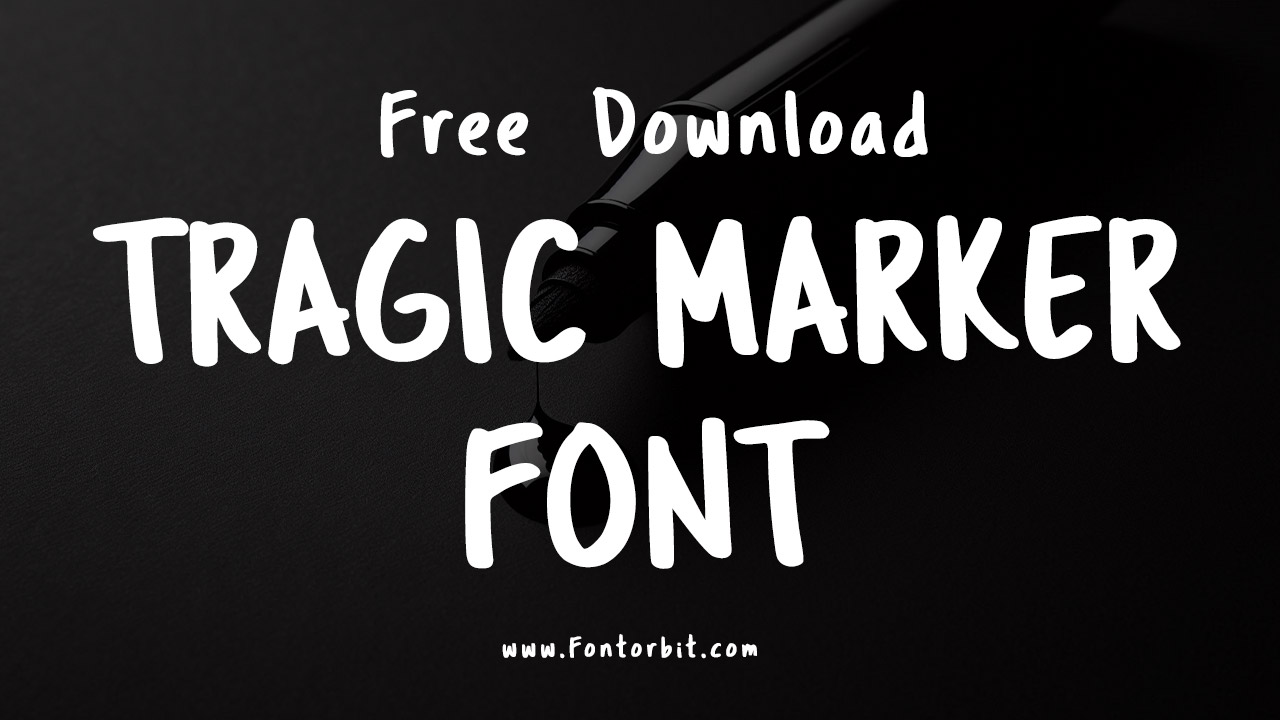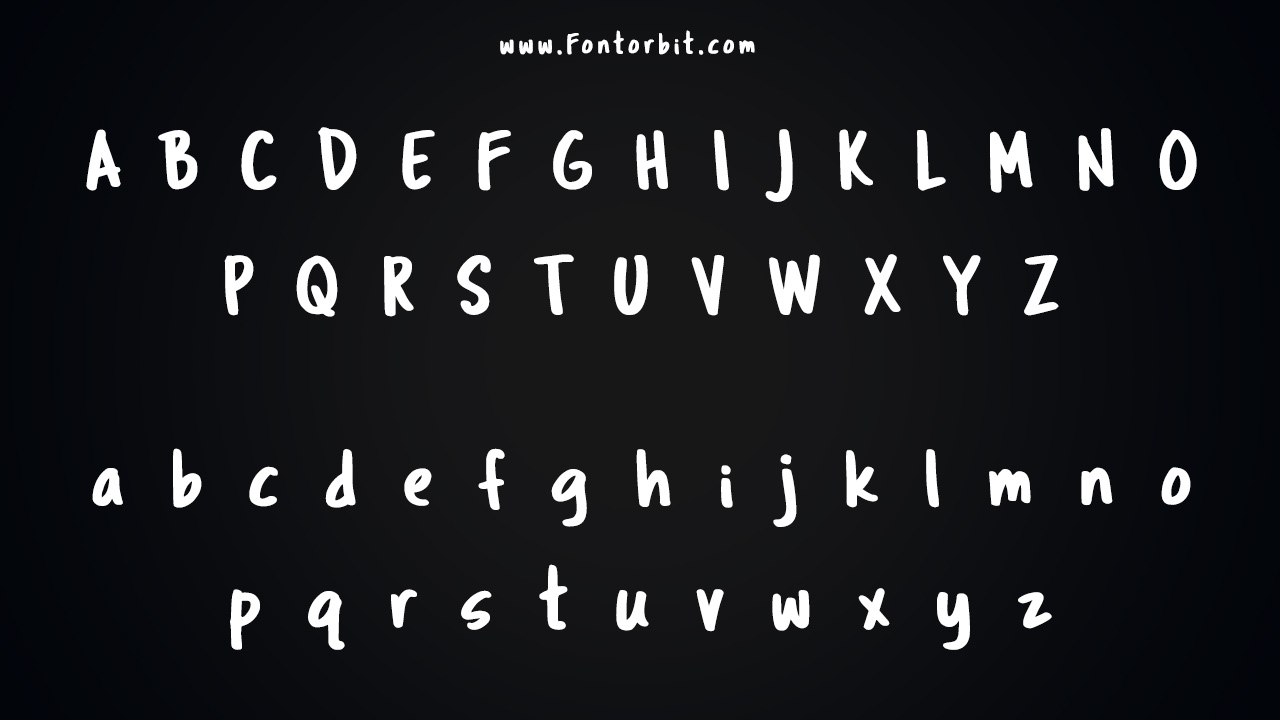
Tragic Marker Font is a charming marker-style typeface designed by Missy Meyer. Released under a free-for-personal-use license, this font combines natural handmade aesthetics with stylish ligatures to create a unique and visually appealing design. Ideal for projects that require a touch of informal elegance, Tragic Marker pairs beautifully with Eras Font for striking results.
- Resume Designs
- Covers
- Banners
- Various Creative Projects
Wrap Up:
Tragic Marker Font offers a distinctive handwritten style with its’ natural, marker-like strokes and elegant ligatures. Perfect for adding a personal touch to your projects, this font is versatile for various applications, from web design to print materials. Enjoy the free version for personal use and explore its potential in your creative endeavors.
1.What Are The Cultural Influences On The Development Of Tragic Marker Font?
Tragic Marker Font reflects a natural, handmade aesthetic inspired by traditional marker styles, emphasizing personal expression and informal charm.
2.What Are The Contemporary Uses Of Tragic Marker Font In Graphic Design?
This font is widely used for resumes, covers, posters, banners, and creative projects, bringing a unique and stylish flair to various design elements.
3.What Are The Best Color Combinations To Use With Tragic Marker Font?
Tragic Marker pairs well with vibrant colors and contrasting backgrounds to enhance its marker-like appearance and readability.
4.What Are The Best Practices For Using Tragic Marker Fonts In Web Design?
Use Tragic Marker for headers and emphasis, ensuring it contrasts well with the background. Avoid using it for large blocks of text to maintain readability.
5.What Makes Tragic Marker Font Unique?
Its handmade, marker-inspired design and stylish ligatures set Tragic Marker apart, providing a distinctive and informal look.
6.Is Tragic Marker Font Easy To Read?
Yes, Tragic Marker Font is designed to be readable with clear, expressive characters, though it is best used for headings and short texts.